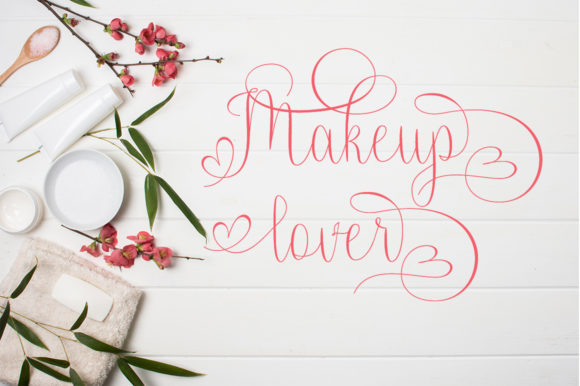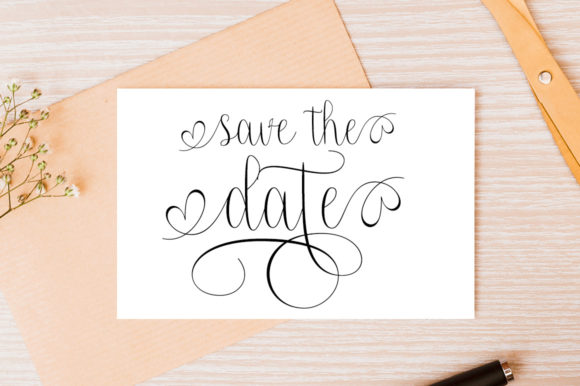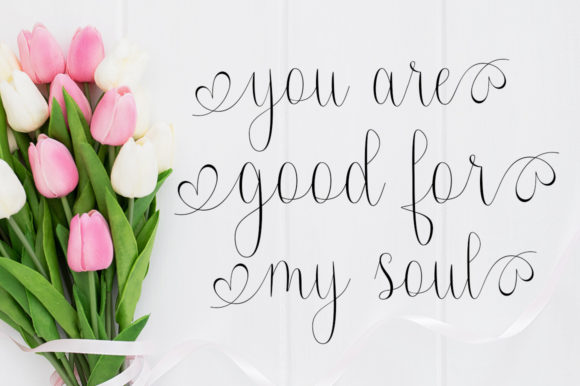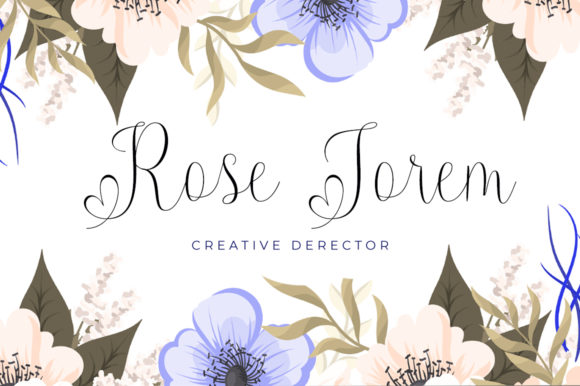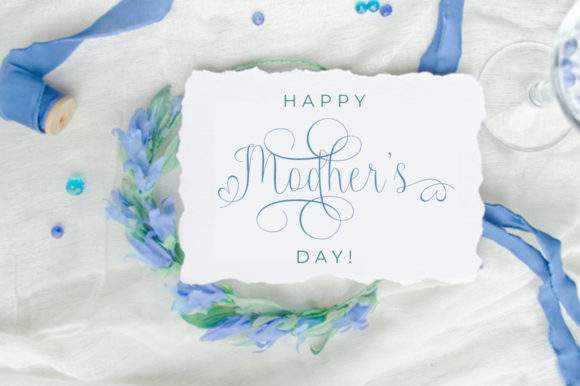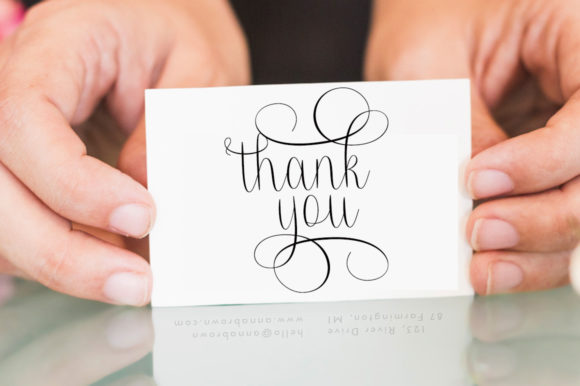
Introducing Amrelia Font: The Sweet and Soft Hand-Lettered Font for Your Creative Projects
Are you a designer or crafter looking for a font that can add a touch of elegance and playfulness to your creative projects? Look no further than Amrelia Font, a sweet and soft hand-lettered handwritten font that is perfect for creating fancy calligraphy art. With its playful rounded characters and heart-themed swashes, Amrelia Font is the ideal choice for a wide range of projects, from wedding invitations and stationary art to social media posts and greeting cards.
What Makes Amrelia Font So Special?
Amrelia Font is a unique and charming font that is designed to add a decorative touch to your projects. Its playful rounded characters give it a soft and gentle feel, making it perfect for creating beautiful and elegant designs. The font comes packed with heart-themed swashes, which allow you to add a touch of whimsy and romance to your projects in just seconds.
One of the standout features of Amrelia Font is its authentic feel. The font is hand-lettered, which gives it a personal and human touch that is hard to replicate with digital fonts. This makes it perfect for creating designs that feel warm and inviting, such as wedding invitations and greeting cards.
Uses for Amrelia Font
Amrelia Font is a versatile font that can be used for a wide range of creative projects. Here are just a few ideas to get you started:
- Wedding Invitations: Amrelia Font is perfect for creating beautiful and elegant wedding invitations. Its playful rounded characters and heart-themed swashes make it a great choice for adding a touch of romance and whimsy to your wedding stationery.
- Stationary Art: Amrelia Font is also great for creating beautiful stationary art, such as notecards, journals, and planners. Its soft and gentle feel makes it perfect for creating designs that are both functional and decorative.
- Social Media Posts: Amrelia Font is a great choice for creating eye-catching social media posts. Its playful rounded characters and heart-themed swashes make it perfect for adding a touch of personality and whimsy to your social media designs.
- Greeting Cards: Amrelia Font is also perfect for creating cute and personalized greeting cards. Its authentic feel and hand-lettered style make it a great choice for creating designs that feel warm and inviting.
Tips for Using Amrelia Font
Here are a few tips for getting the most out of Amrelia Font:
- Experiment with Different Sizes: Amrelia Font looks great in a variety of sizes, from small and delicate to large and bold. Experiment with different sizes to find the one that works best for your project.
- Play with Swashes: Amrelia Font comes with a range of heart-themed swashes that can add a decorative touch to your designs. Experiment with different swashes to find the one that works best for your project.
- Pair with Other Fonts: Amrelia Font pairs well with a range of other fonts, from serif and sans serif fonts to script and handwritten fonts. Experiment with different font combinations to find the one that works best for your project.
Amrelia Font is a sweet and soft hand-lettered handwritten font that is perfect for creating fancy calligraphy art. With its playful rounded characters and heart-themed swashes, it is the ideal choice for a wide range of creative projects, from wedding invitations and stationary art to social media posts and greeting cards. Whether you’re a designer or crafter, Amrelia Font is a great choice for adding a touch of elegance and playfulness to your designs.
So why not give Amrelia Font a try? With its authentic feel and hand-lettered style, it’s sure to become a favorite in your font collection.